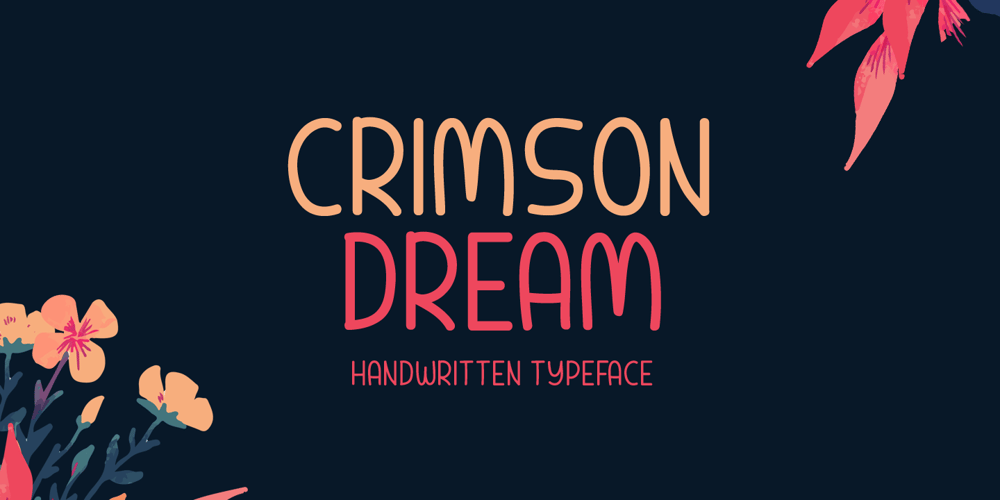
Crimson Dream Font Family was designed by Md Shohail Bhuian and published by Seemly Fonts. Crimson Dream contains 1 styles and family package options. Crimson Dream is a cute and simple lettered handwritten font that can be used for all chalkboard quotes or teaching material! Its authentic look will add a personal and realistic feel to your designs.